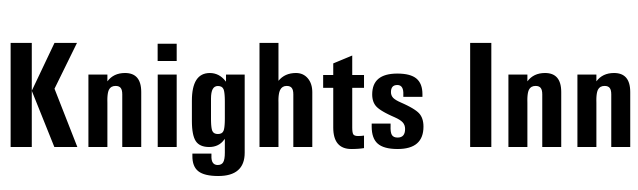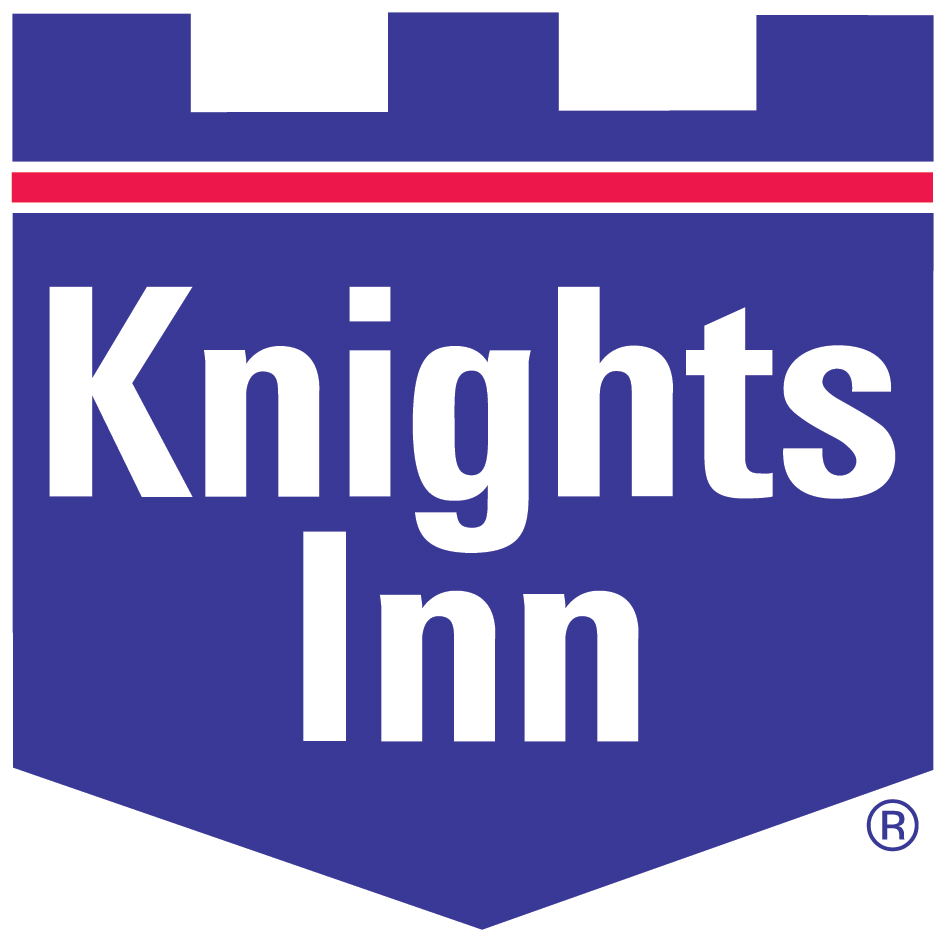
Knights Inn Font
Fonts in UseKnights Inn is a hotel chain owned by Wyndham Hotels & Resorts. It has over 350 locations throughout the United States and Canada, offering affordable accommodations with basic amenities.